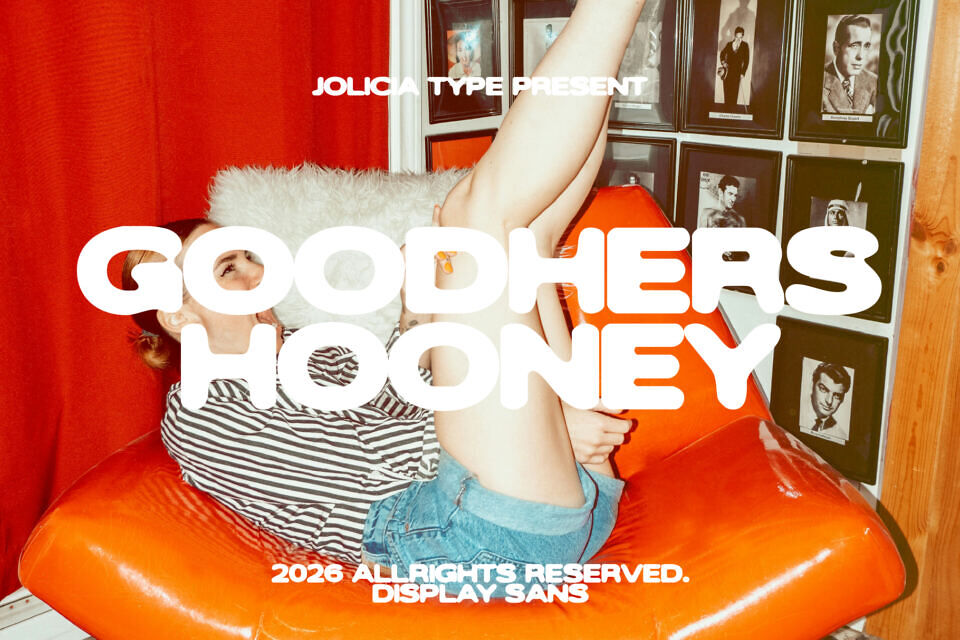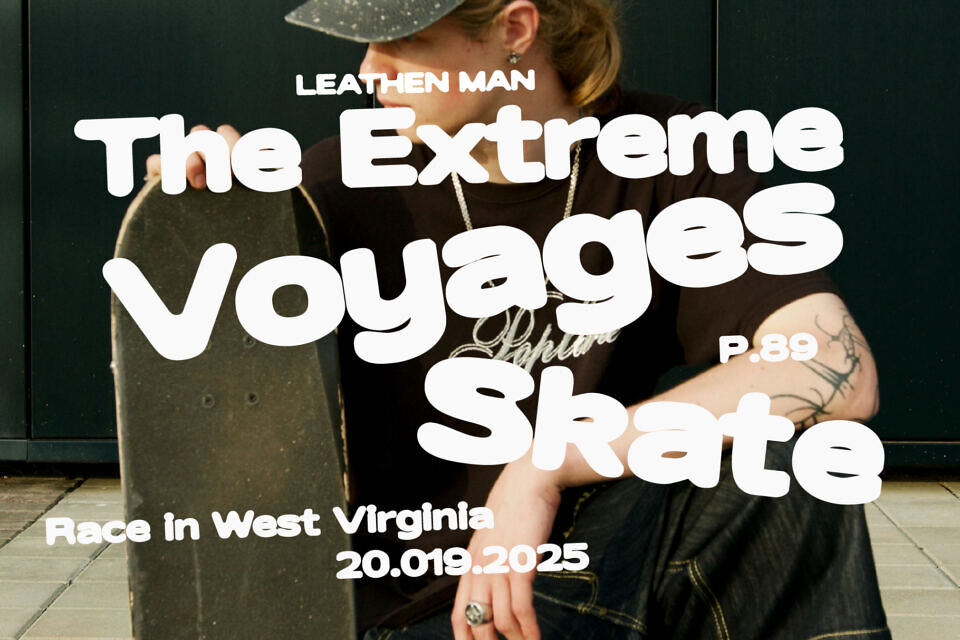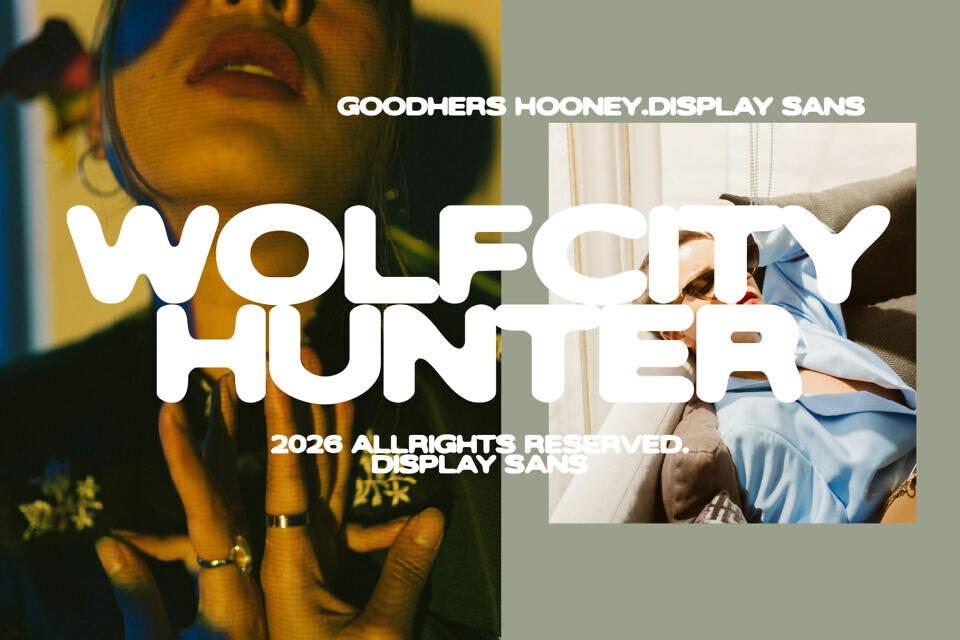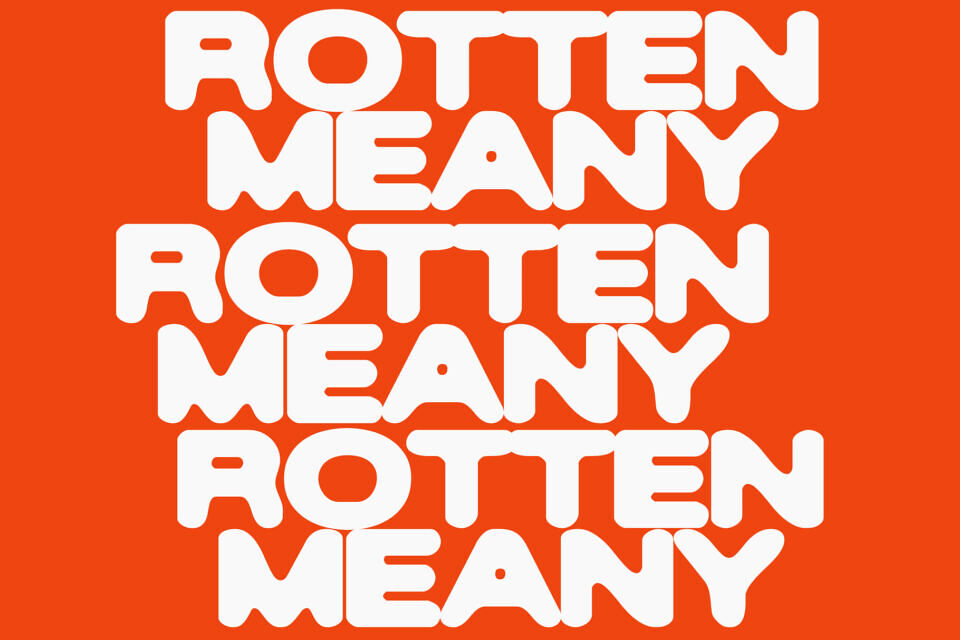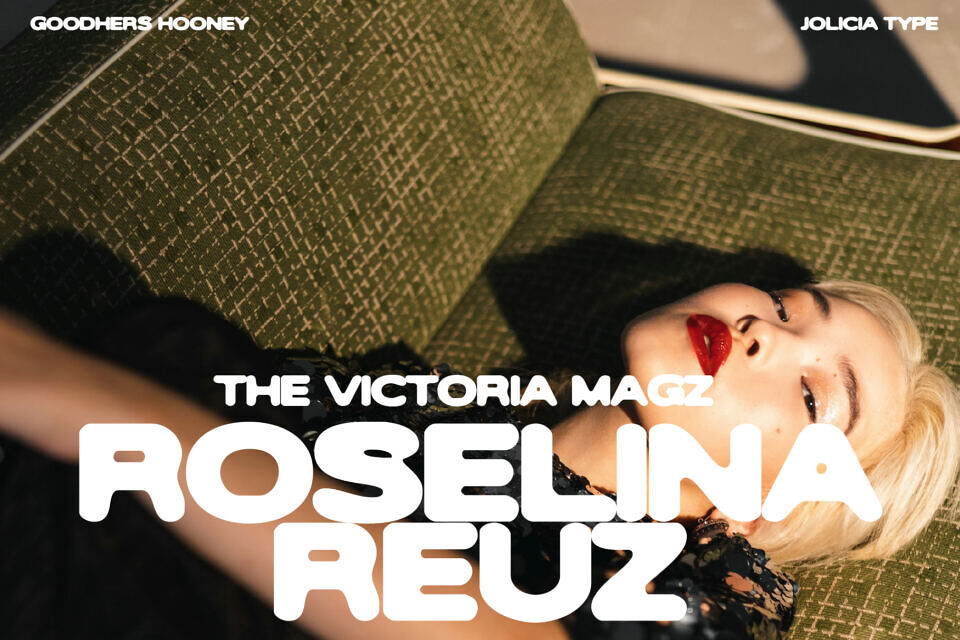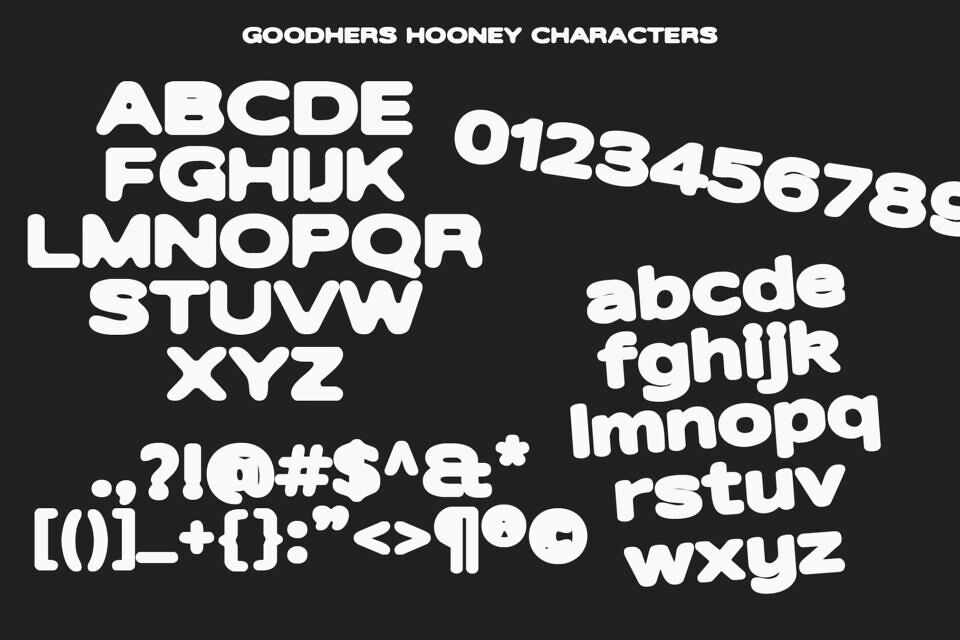
Goodhers Hooney is a wide sans serif display typeface designed to make an instant visual impact. Built with thick, rounded blurry letterforms and generous horizontal proportions, this typeface delivers a strong presence while maintaining a friendly and approachable feel. The smooth curves and soft corners add a playful personality, giving the font a subtle retro-pop vibe without feeling outdated.
Goodhers Hooney performs beautifully in headlines, posters, branding projects, music covers, fashion campaigns, packaging, and statement logos. The overall aesthetic feels vibrant, expressive, and slightly nostalgic ā reminiscent of 70sā90s visual culture, reimagined with a modern twist.